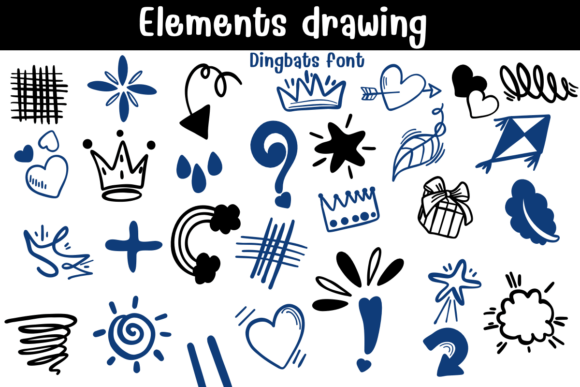
Unlock Creative Expression with Elements Drawing Font
Are you tired of using the same old boring fonts in your designs? Do you want to add a touch of personality and whimsy to your projects? Look no further than Elements Drawing Font, a versatile and expressive collection of stylish, hand-drawn abstract and emotional symbols. This dingbat font is perfect for designers, crafters, and anyone looking to add a unique and artistic touch to their work.
What is Elements Drawing Dingbats Font?
Elements Drawing Dingbats Font is a carefully crafted collection of graphic elements, including hearts, crowns, arrows, question marks, stars, scribbles, and whimsical shapes. Each symbol is meticulously hand-drawn to give it a distinctive, sketch-like feel that’s perfect for adding visual interest and emphasis to your designs. With this font, you can easily add a dash of creativity and personality to your social media posts, mood boards, note-taking apps, presentation slides, or modern casual branding.
Key Features of Elements Drawing Font
• Versatile and Expressive: Elements Drawing Font offers a wide range of symbols and shapes that can be used in various design contexts.
• Hand-Drawn with Love: Each symbol is carefully crafted to give it a unique, artistic feel.
• Easy to Use: Simply type a character to unlock a unique, artistic doodle.
• Perfect for Adding Visual Interest: Add a touch of personality and whimsy to your designs with these stylish symbols.
Use Cases for Elements Drawing Font
So, how can you use Elements Drawing Font in your designs? The possibilities are endless! Here are a few ideas to get you started:
• Social Media Posts: Add a dash of personality to your social media posts with these fun and quirky symbols.
• Mood Boards: Create visually appealing mood boards with these artistic symbols.
• Note-Taking Apps: Add a touch of creativity to your notes and to-do lists.
• Presentation Slides: Make your presentation slides more engaging and interactive with these unique symbols.
• Modern Casual Branding: Use Elements Drawing Font to add a touch of whimsy and personality to your brand identity.
Elements Drawing Font offers a range of benefits for designers and crafters, including:
• Increased Creativity: With a wide range of unique symbols at your fingertips, you’ll never run out of creative ideas.
• Time-Saving: Simply type a character to unlock a unique, artistic doodle – no need to spend hours creating custom illustrations.
• Consistency: Use Elements Drawing Font to maintain a consistent visual style across your designs.
Tips for Using Elements Drawing Font
Here are a few tips for getting the most out of Elements Drawing Font:
• Experiment with Different Combinations: Try pairing different symbols together to create unique and interesting combinations.
• Use it Sparingly: Use Elements Drawing Font to add emphasis or visual interest to your designs – too many symbols can be overwhelming.
• Mix and Match with Other Fonts: Combine Elements Drawing Font with other fonts to create visually appealing typography.
Elements Drawing Font is a versatile and expressive collection of stylish, hand-drawn abstract and emotional symbols. With its wide range of uses and benefits, it’s perfect for designers, crafters, and anyone looking to add a unique and artistic touch to their work. So why wait? Unlock your creative potential with Elements Drawing Font today!